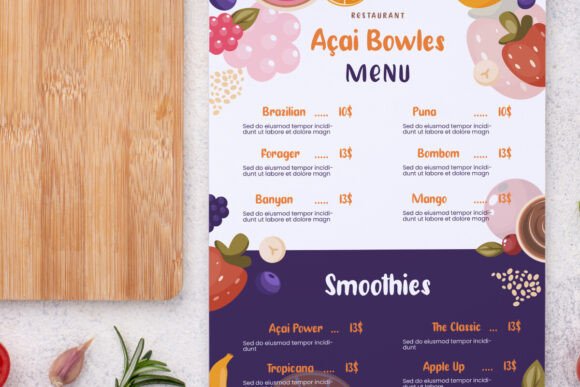
Riceberry Font: The Perfect Choice for Adding a Fun and Creative Touch to Your Design
Riceberry Font is a modern, stylish, and bold brush-written display font that exudes a refreshing mood. Inspired by the vibrant and attractive color of fresh fruit, this font is perfect for adding a fun atmosphere to your design. Whether you’re looking to create eye-catching advertising materials, branding logos, or social media graphics, Riceberry Font is an excellent choice.
Key Features of Riceberry Font
- Cute and Stylish Design: Riceberry Font boasts a charming and sweet handwriting style that conveys friendliness and approachability.
- Bold and Refreshing Mood: The font’s bold and refreshing mood makes it perfect for creating eye-catching designs that grab attention.
- Inspired by Fresh Fruit: The theme of Riceberry Font is inspired by fiery red, which is attractive and reminiscent of fresh fruit.
- Versatile and Multi-Purpose: This font can be used for a wide range of design projects, including advertising, blogs, branding logos, business cards, and more.
Endless Design Possibilities with Riceberry Font
Riceberry Font is an incredibly versatile font that can be used for various design projects, such as:
- Advertising purposes (posters, flyers, brochures)
- Blogs and social media graphics
- Branding logos and business cards
- Cover design and flyers
- Greeting cards and invitations
- Header and headline design
- Labels and mockup templates
- Posters and product packaging
- Quotes and menu brochures
- Screen print and stationery
- Stickers and watermarks
- Websites and more!
Ideal for Various Businesses and Industries
Riceberry Font is suitable for a wide range of businesses and industries, including:
- Bakery and Cake Shop: Add a sweet and charming touch to your bakery or cake shop branding with Riceberry Font.
- Food and Drinks Brands: Use Riceberry Font to create eye-catching packaging and advertising materials for your food and drinks brand.
- Cafeteria and Restaurant: Create a fun and inviting atmosphere with Riceberry Font for your cafeteria or restaurant.
- Fashion and Graphic Design: Use Riceberry Font to add a creative and stylish touch to your fashion or graphic design projects.
- Event Organizer and Photography: Riceberry Font is perfect for creating event invitations, flyers, and photography materials.
- Homeware and Toy Store: Add a playful and charming touch to your homeware or toy store branding with Riceberry Font.
- Movie and Publishing: Use Riceberry Font to create eye-catching posters, flyers, and book covers.
The Benefits of Using Riceberry Font
Riceberry Font offers several benefits, including:
- Unique and Creative Design: Riceberry Font boasts a unique and creative design that sets it apart from other fonts.
- Easy to Read: The font is easy to read, making it perfect for body text and headlines.
- Versatile: Riceberry Font can be used for a wide range of design projects and industries.
- High-Quality: The font is of high quality, ensuring that your designs look professional and polished.
Tips for Using Riceberry Font Effectively
Here are some tips for using Riceberry Font effectively:
- Use it for Headlines and Titles: Riceberry Font is perfect for headlines and titles, where you want to grab attention.
- Pair it with Other Fonts: Pair Riceberry Font with other fonts to create a unique and creative design.
- Experiment with Colors: Experiment with different colors to find the perfect combination that works with Riceberry Font.
- Use it for Branding: Use Riceberry Font for branding purposes, such as logos, business cards, and packaging.
Riceberry Font is a versatile and creative font that can add a fun and refreshing touch to your design. With its unique and charming design, it’s perfect for a wide range of design projects and industries. Whether you’re looking to create eye-catching advertising materials, branding logos, or social media graphics, Riceberry Font is an excellent choice.